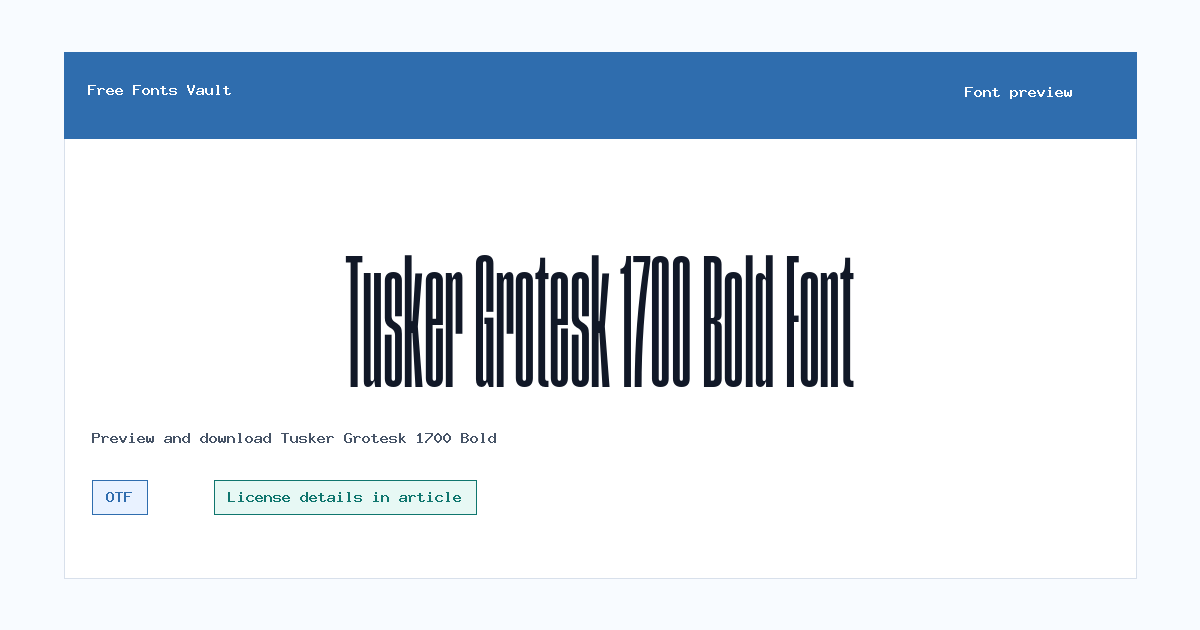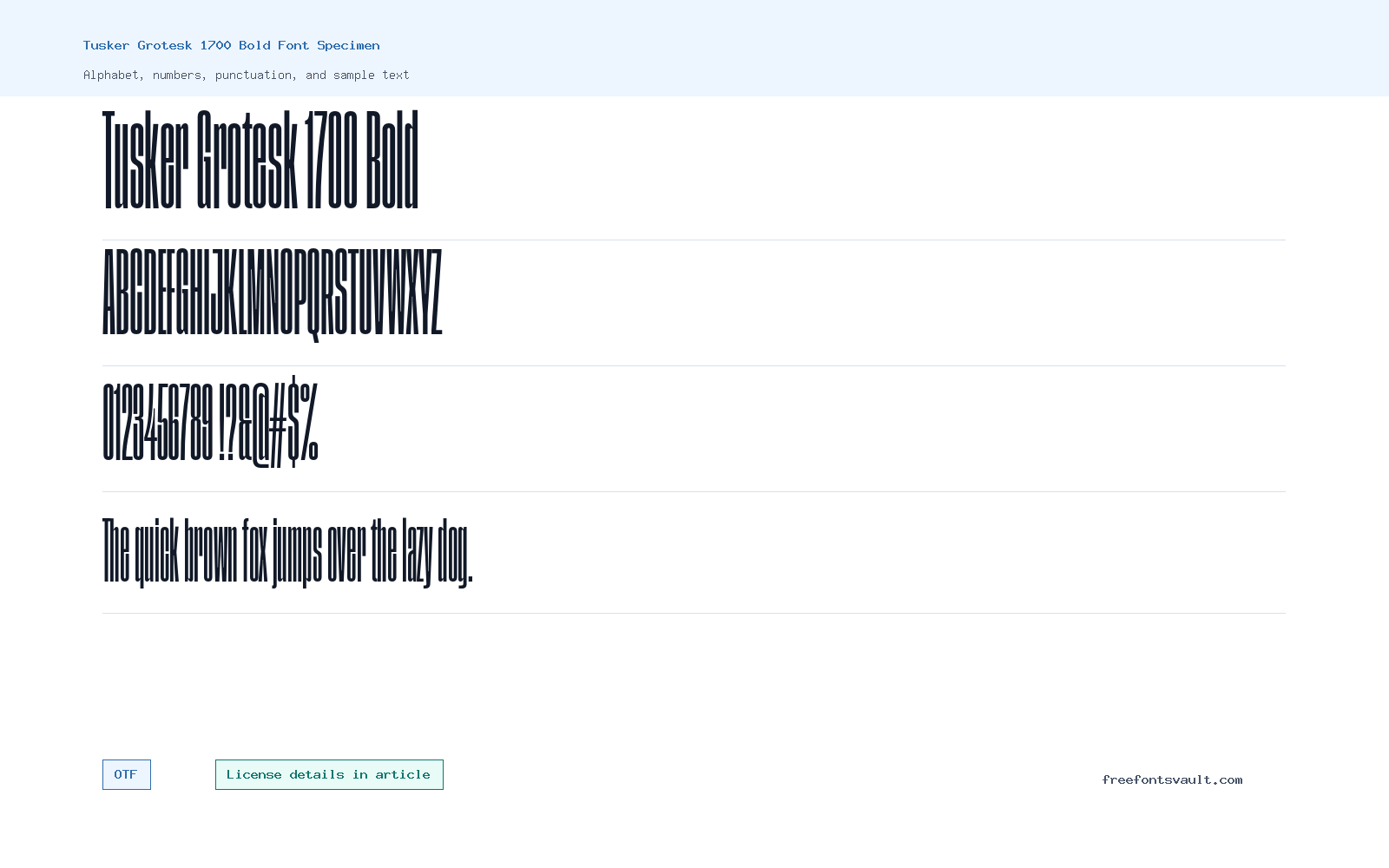
Tusker Grotesk 1700 Bold
- Designer Lewis McGuffie
- Foundry Lewis McGuffie
Tusker Grotesk 1700 Bold font.
Tusker Grotesk 1700 Bold is a bold upright display font with a strong grotesk feel. It is built for short text that needs height, weight, and immediate impact.
About Tusker Grotesk 1700 Bold Font
Tusker Grotesk 1700 Bold is listed as an OTF file with normal style and a 700 weight. The name points to a bold cut within the wider Tusker Grotesk family, and the page credits Lewis McGuffie as designer and foundry. This entry contains one upright style, so use it as a focused display choice rather than a complete type system.
The best use cases are short and confident: posters, headlines, event titles, covers, packaging mockups, labels, thumbnails, and social graphics. The 1700 Bold weight gives text a firm presence without needing extra effects. For longer copy, use a quieter companion font so the main headline can stay sharp and readable.
Before downloading, preview the exact words you plan to use. Tall bold grotesk styles can look excellent in a few words, but spacing can feel tight when the line includes punctuation, long names, or mixed-case phrases. Test both large and medium sizes if the design will appear on screens.
- Upright normal style for direct headline use
- Designer and foundry credited to Lewis McGuffie
- Strong display personality for compact text settings
- Best paired with simpler body text for longer layouts
- Good for previewing title-scale typography before final design
- Headlines, posters, covers, and title cards
- Labels, thumbnails, event graphics, and social posts
- Packaging mockups and short promotional lines
- Bold branding experiments and display wordmarks
- Layouts that need one strong upright grotesk style
Tusker Grotesk 1700 Bold is credited to Lewis McGuffie, with Lewis McGuffie also listed as the foundry and lewismcguffie.com listed as the designer website.
Use Tusker Grotesk 1700 Bold for the main display line, then pair it with a calmer serif or sans serif for details. If a heading feels crowded, increase tracking, reduce the number of words, or move supporting copy into a separate font.
Who designed Tusker Grotesk 1700 Bold?
The font data credits Lewis McGuffie as the designer and foundry.
What is it best used for?
It is best for short display uses such as headlines, posters, covers, labels, thumbnails, and bold title graphics.
Does this page include the full Tusker family?
This page lists one 1700 Bold upright style. Check the wider family if you need matching weights or styles.